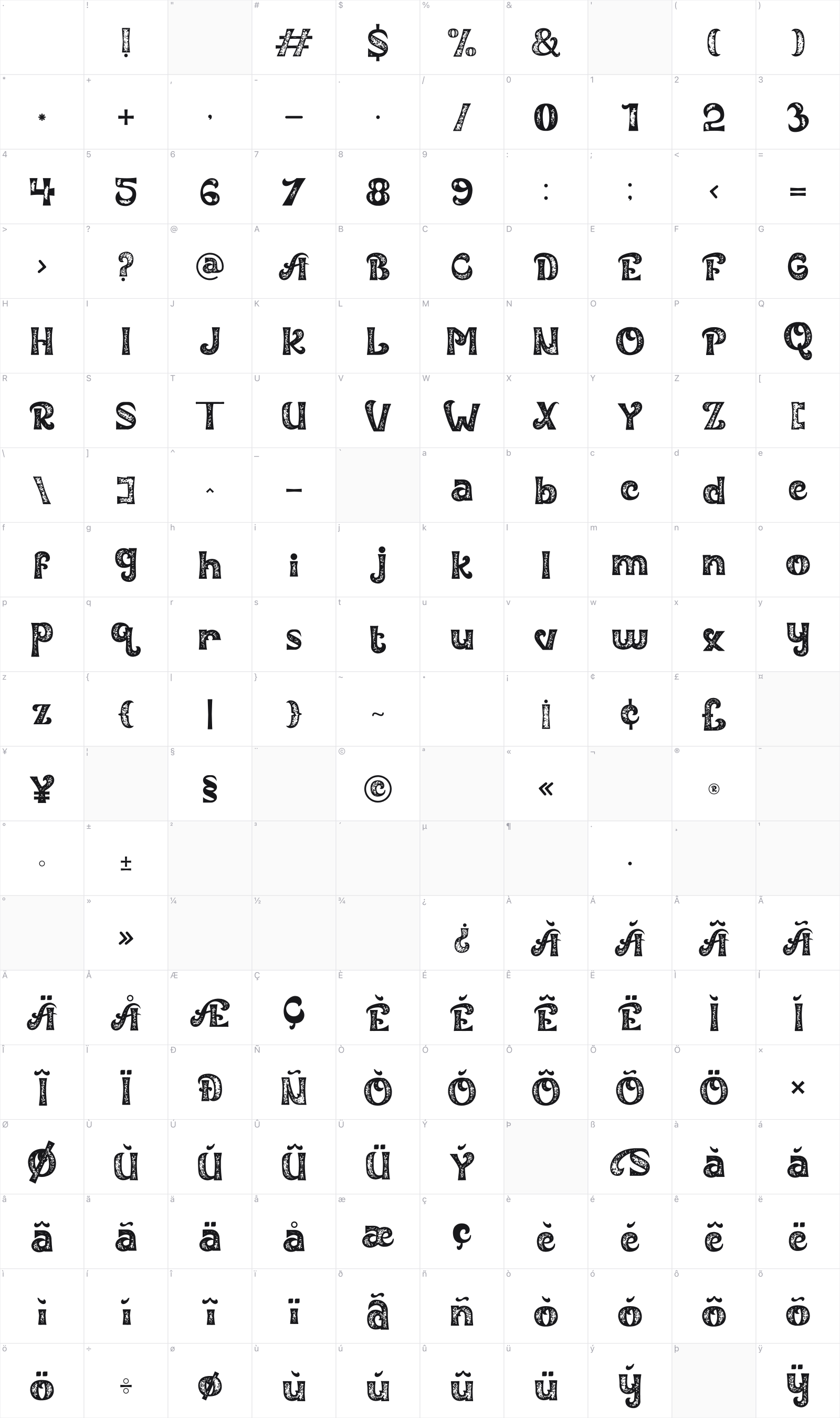
Elastic Heart
Elastic Heart is a bold, rounded serif drenched in distressed texture, as if stamped through an inked rubber block onto rough paper. The chunky characters mix slab-like serifs with soft curves, giving it a handmade folk quality that sits between playful and gritty. It works well at large sizes where the worn surface detail can breathe.